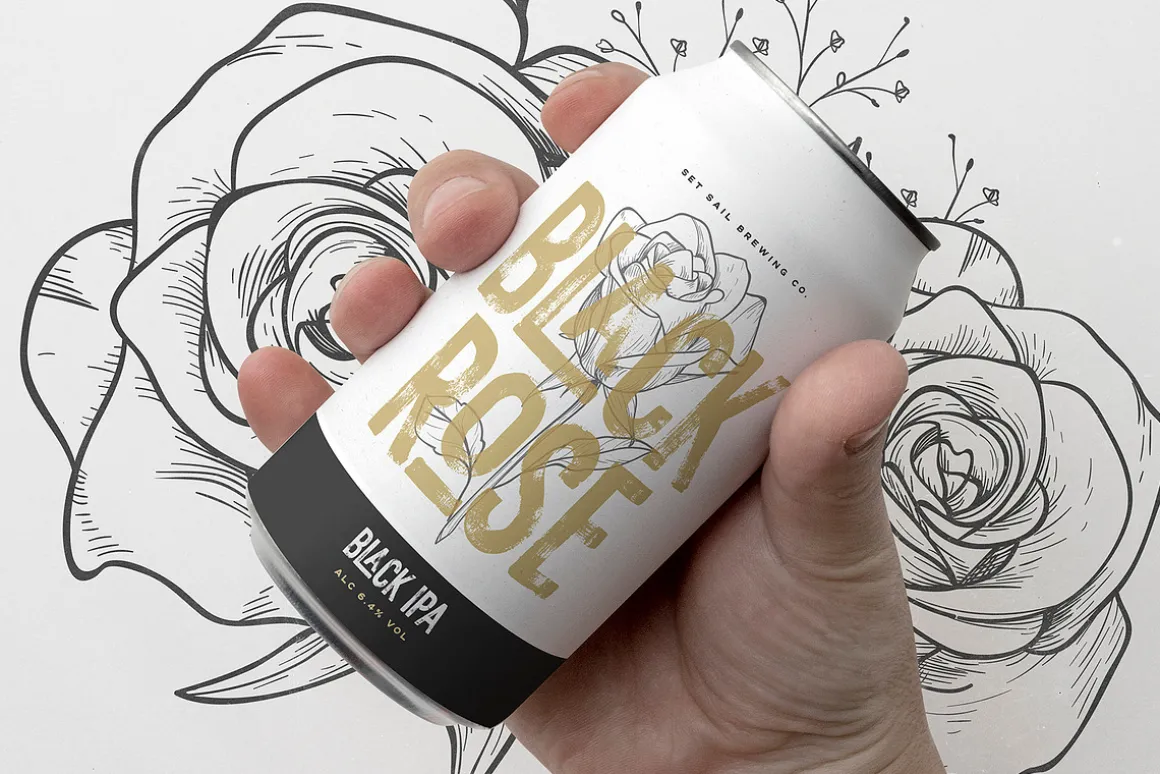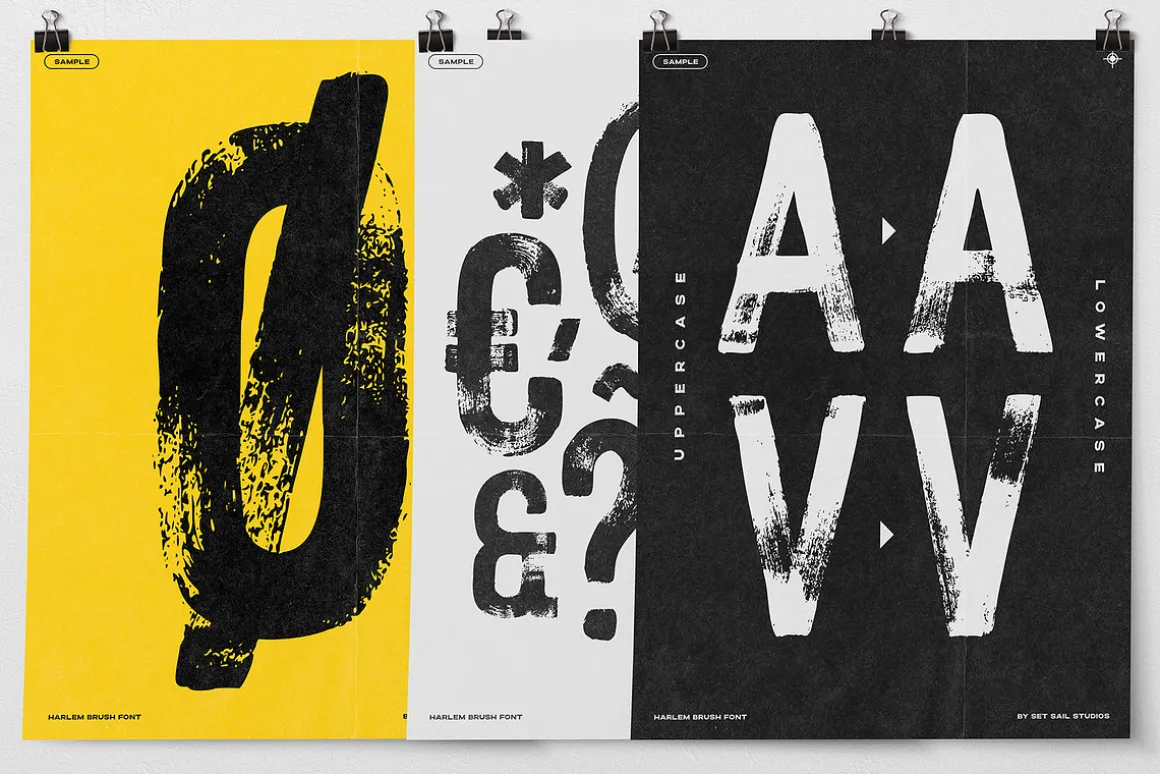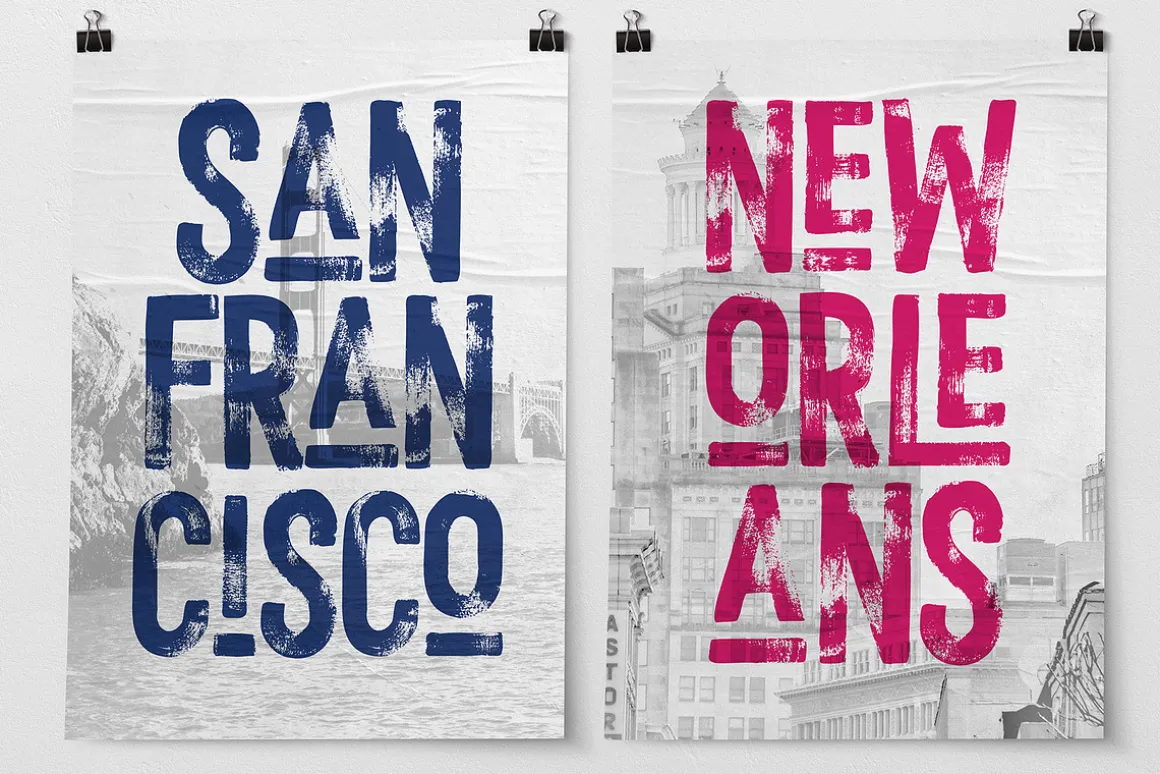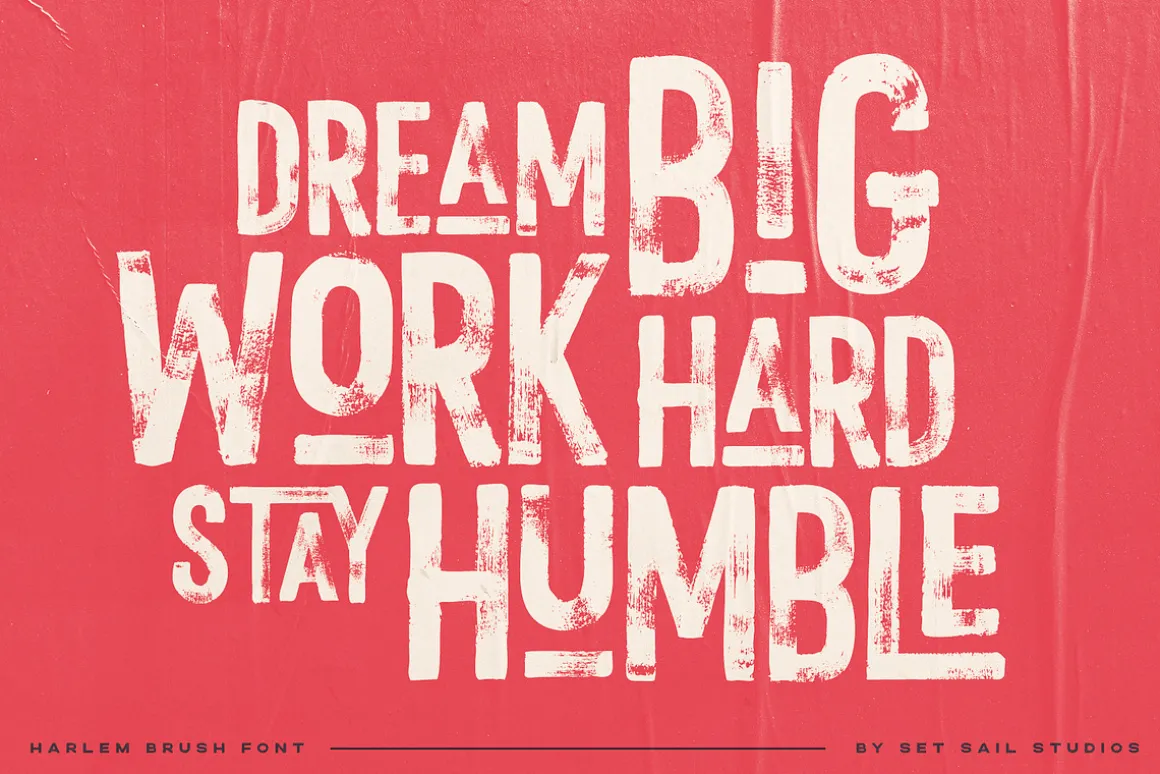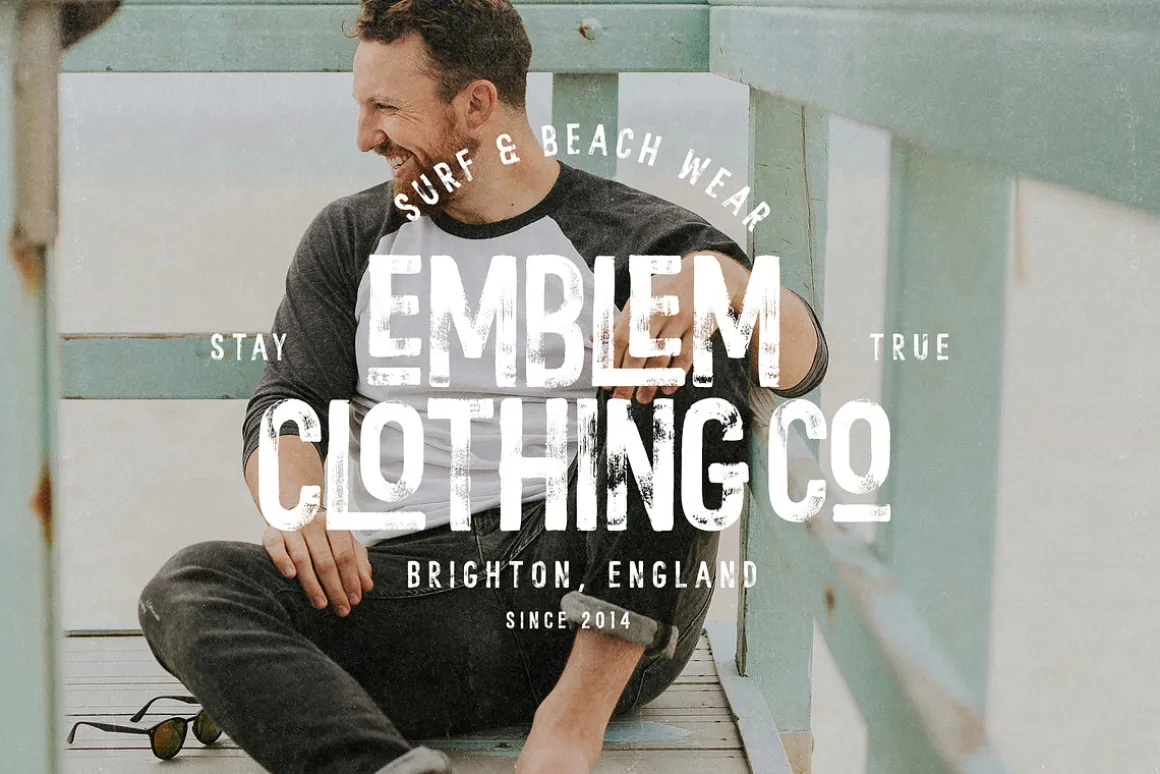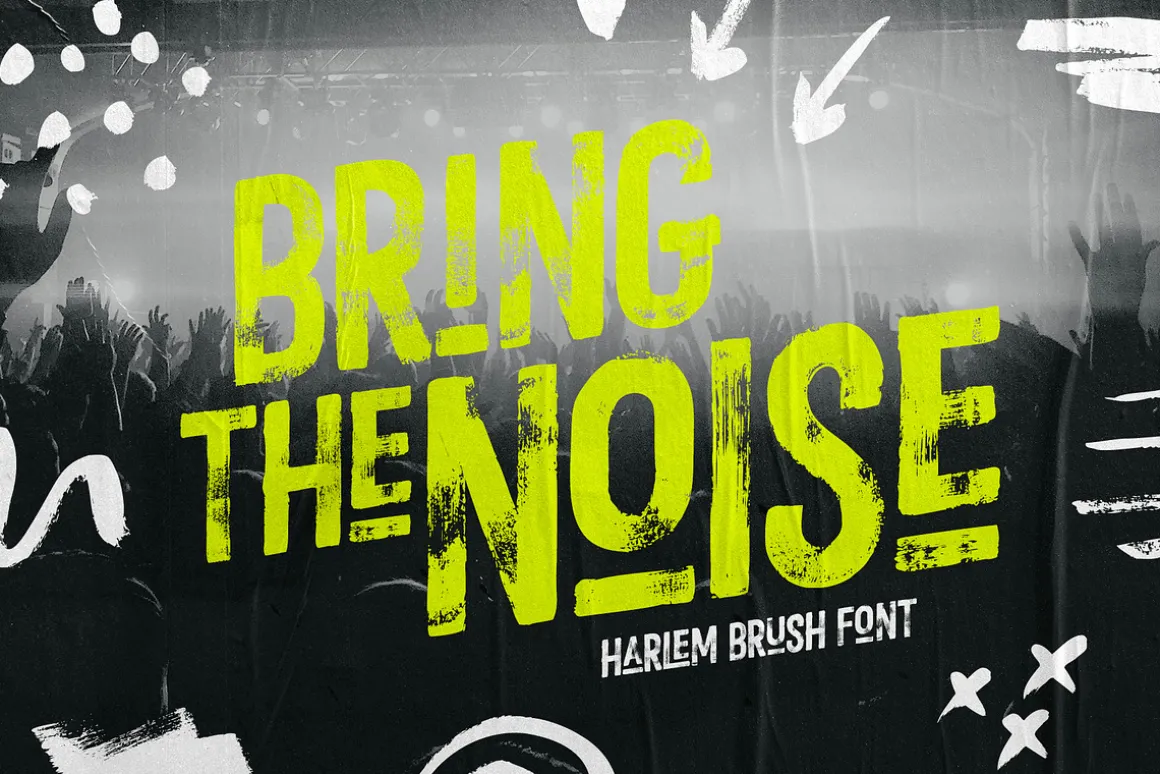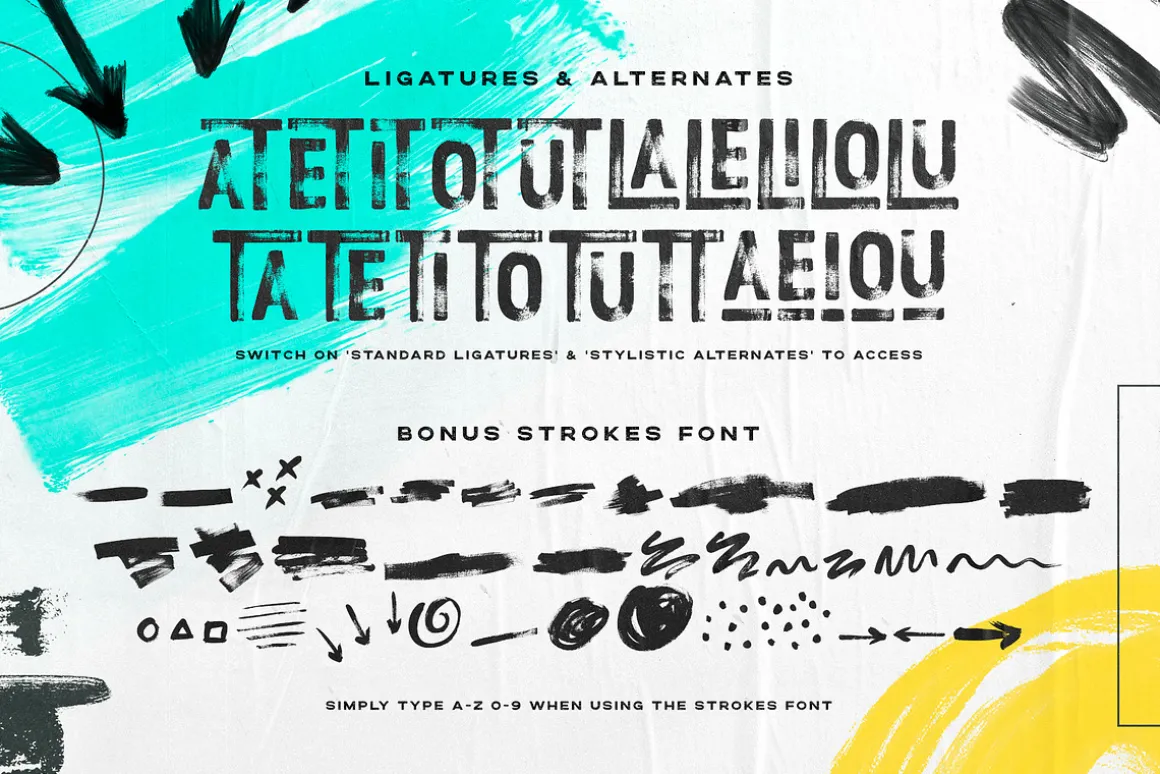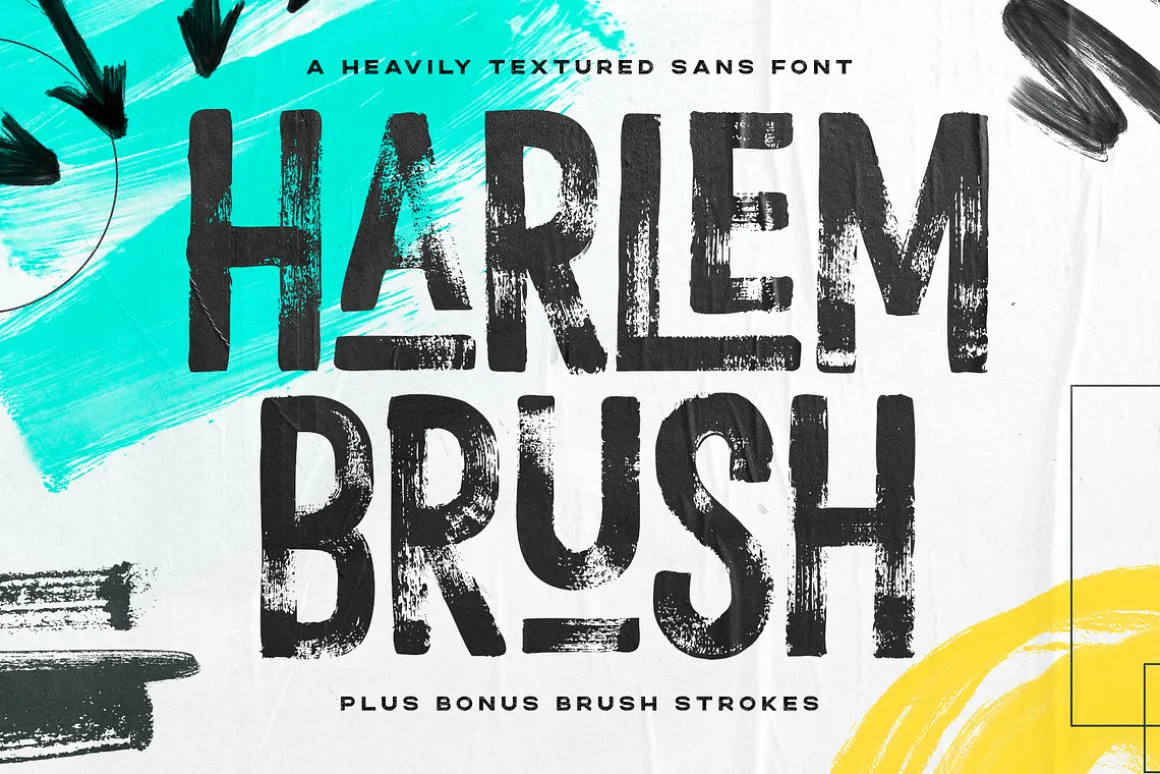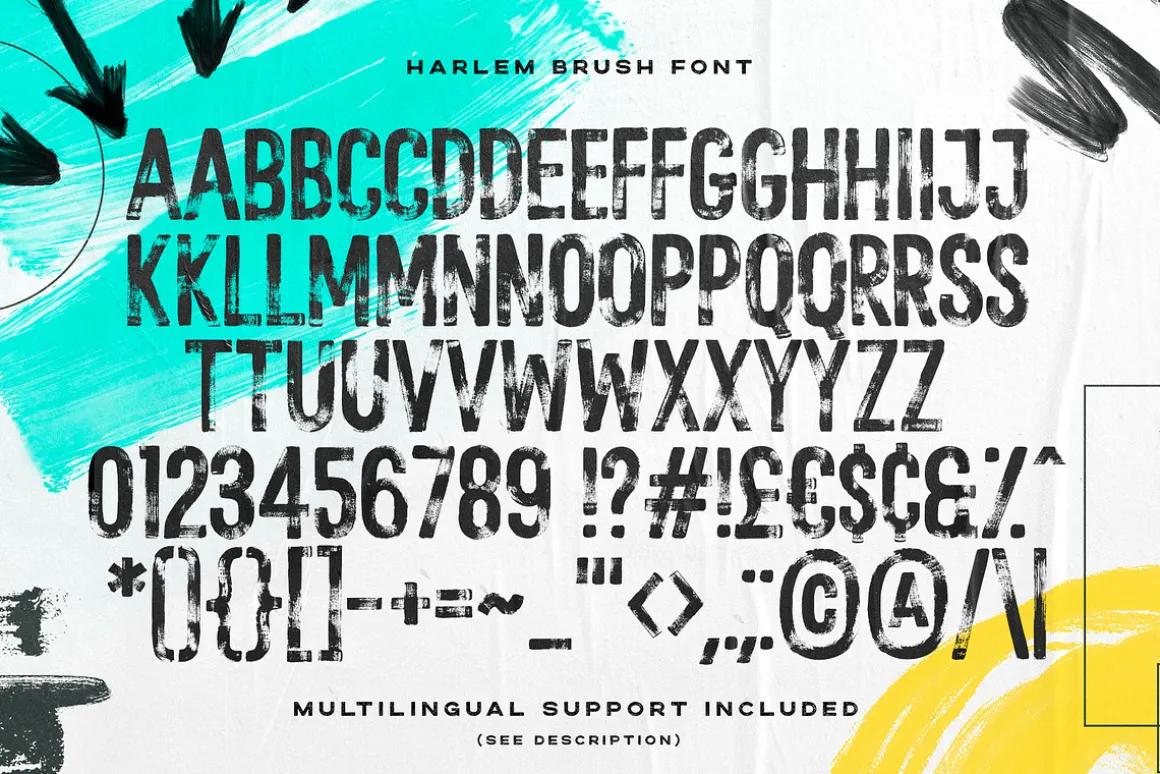
Harlem Brush is a hand painted sans-serif font with heavily distressed brush textures, guaranteed to demand attention. It’s a powerful statement, a rebellion against the mundane, and a celebration of bold creativity. This dynamic font set includes;
A full alternate set of A-Z characters – Accessible by switching between upper and lowercase sets. Switch to the alternate set when you want to apply a different texture to your letter.
21 Ligatures and Small-Caps – Use these special characters to add some extra flair to your text. Accessible by switching on ‘Standard Ligatures’ and ‘Stylistic Alternates’ (type in UPPERCASE), or via a Glyphs panel.
35 Bonus Paintbrush Strokes – This bonus set includes messy paintbrush strokes, doodles, arrows, squiggly lines, stripes, shapes and swirls. Simply install the additional ‘Harlem Brush Strokes’ font and type any A-Z or 0-9 character to generate a stroke. Perfect for when your Harlem Brush text needs some extra surrounding energy.
Extensive Punctuation and Language Support – Harlem Brush includes language support for English, French, Italian, Spanish, Portuguese, German, Swedish, Norwegian, Danish, Dutch, Finnish, Indonesian, Malay, Hungarian, Polish, Croatian, Turkish, Romanian, Czech, Latvian, Lithuanian, Slovak, Slovenian.